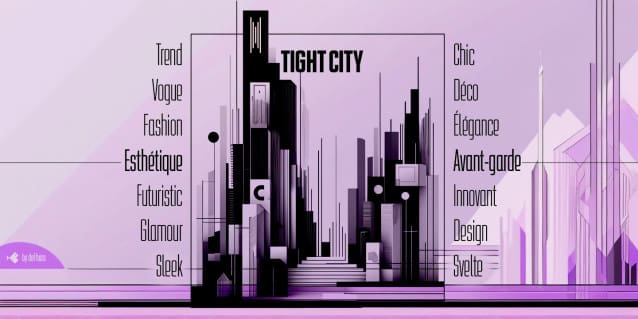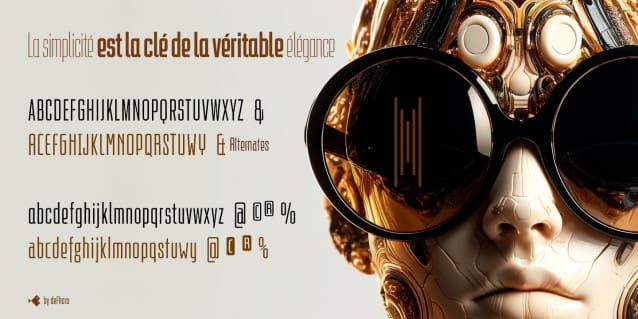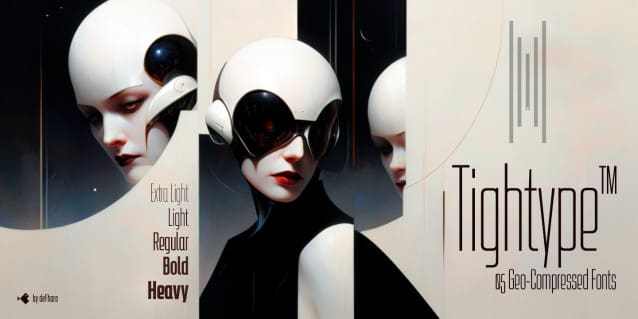
Tightype Font is a compressed sans serif font family, notable for its elegance derived from an exaggerated vertical proportion. His style is a fusion between art-deco and futurism, which gives him an unmistakable presence and is highly readable in any medium.
Tightype Font
| Classification: | Display Fonts, Sans Serif Fonts |